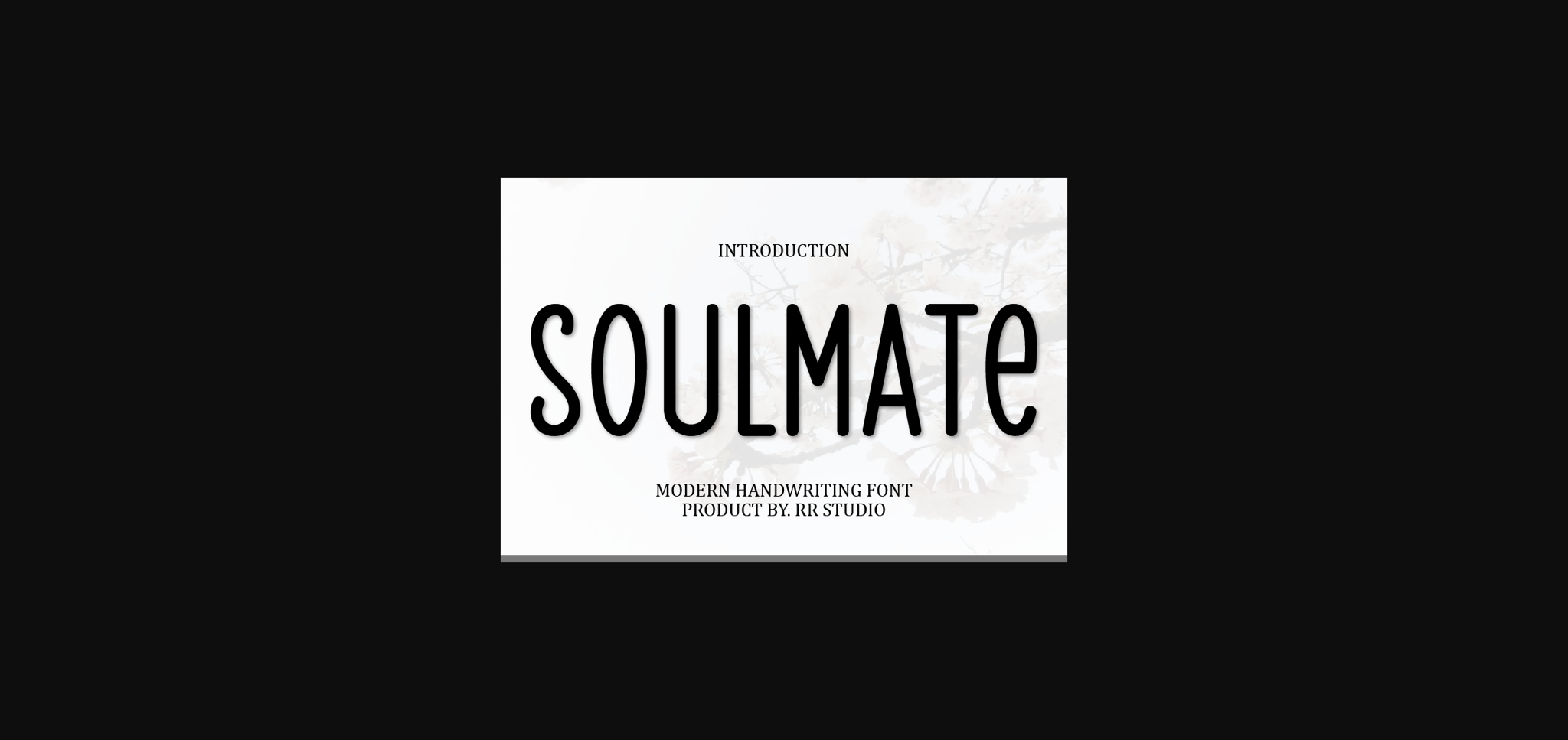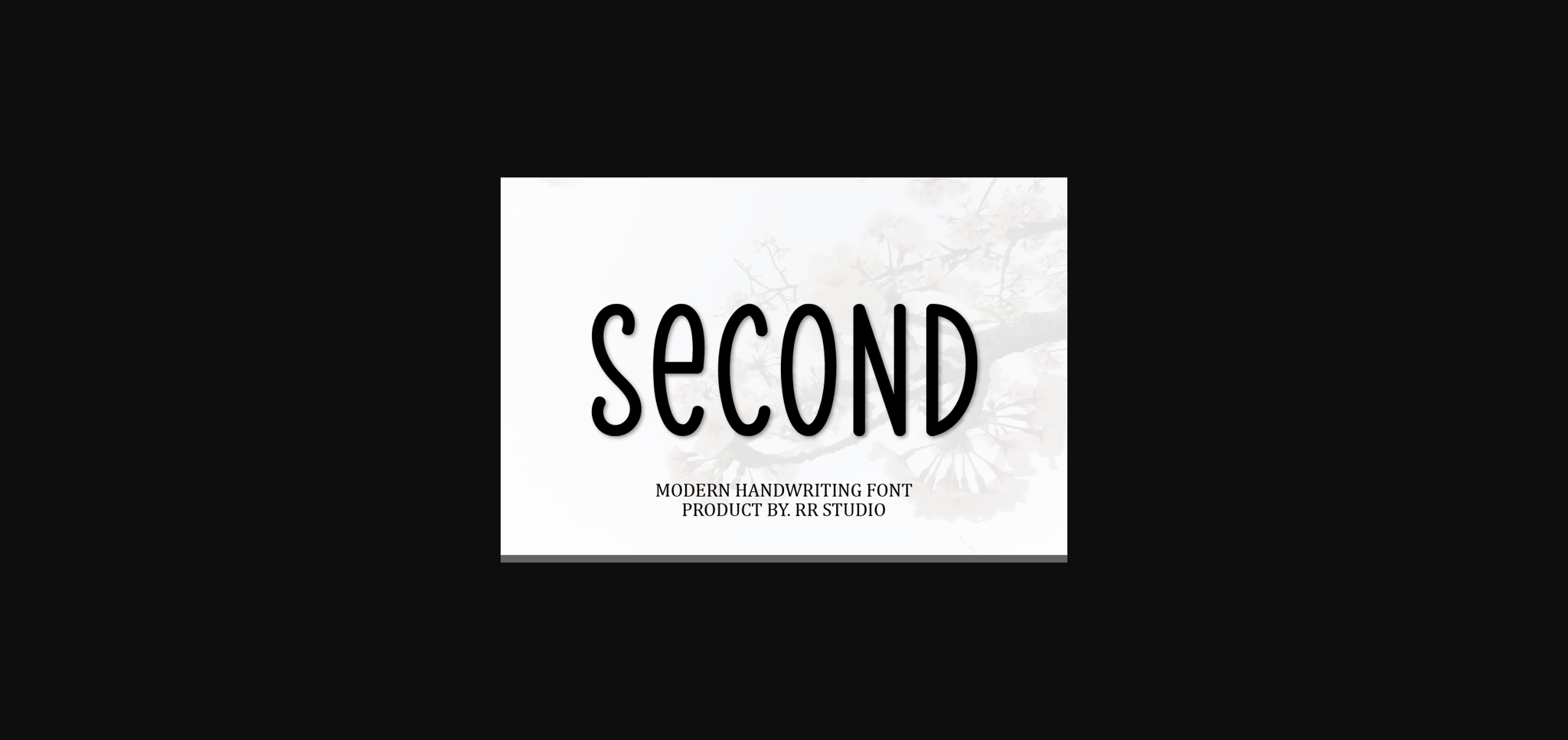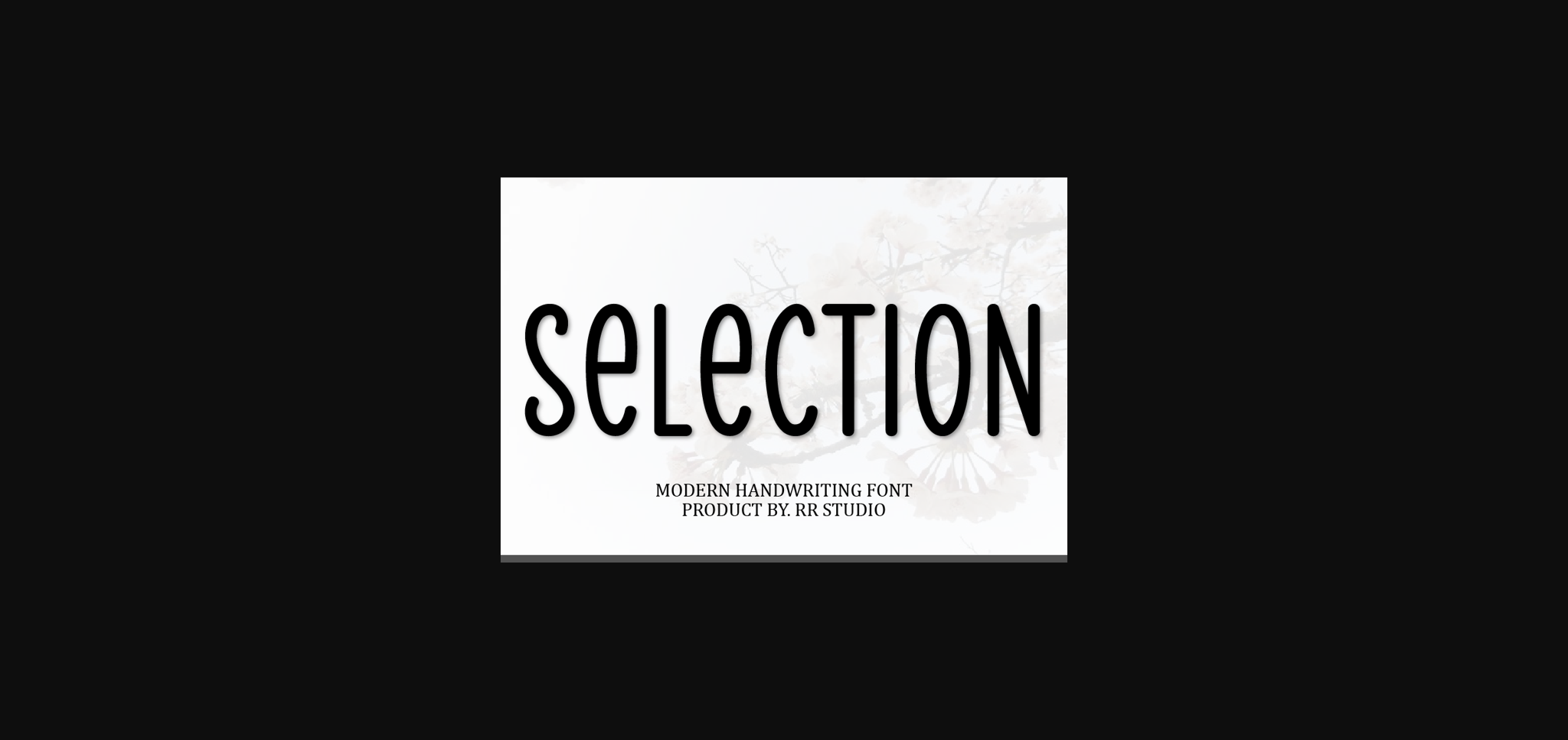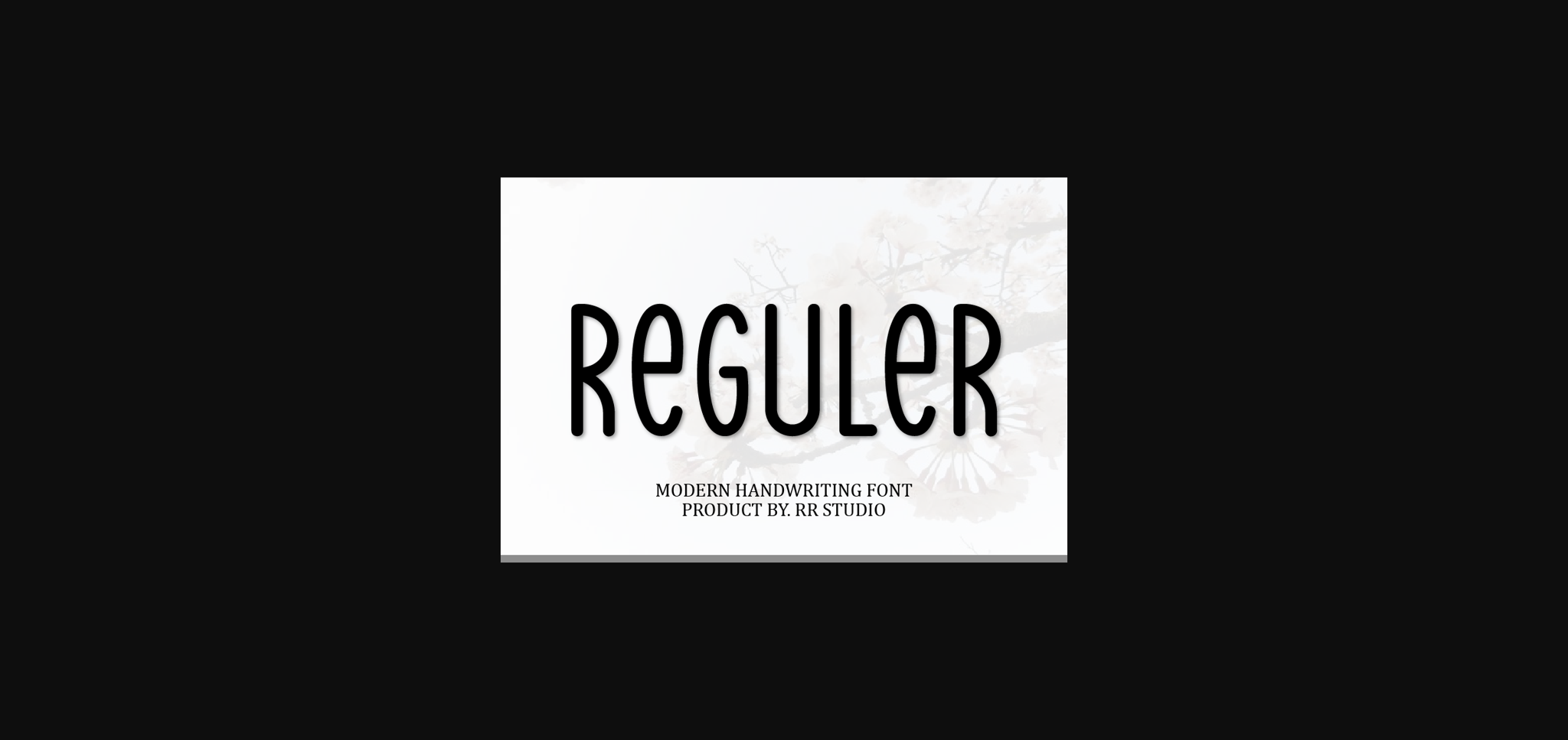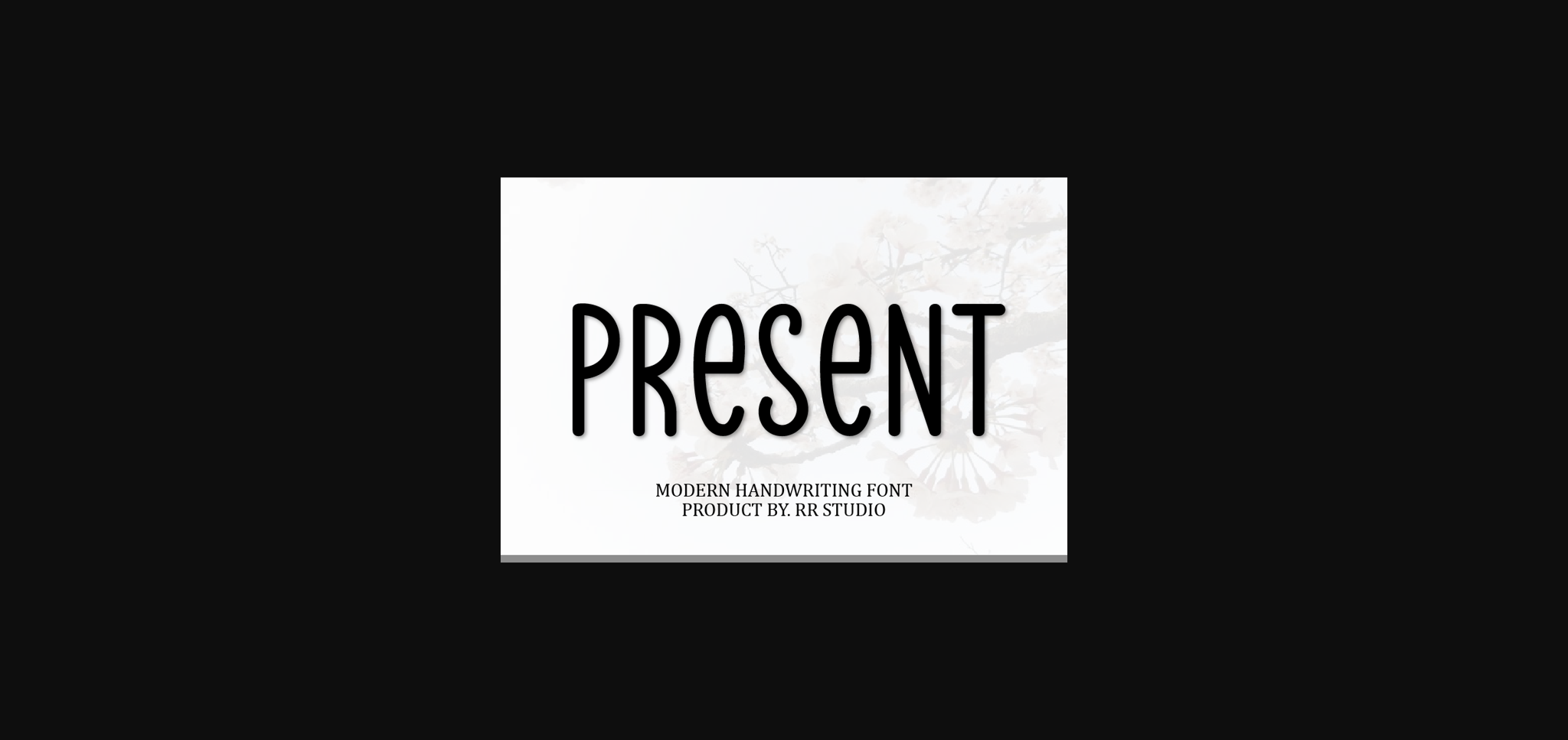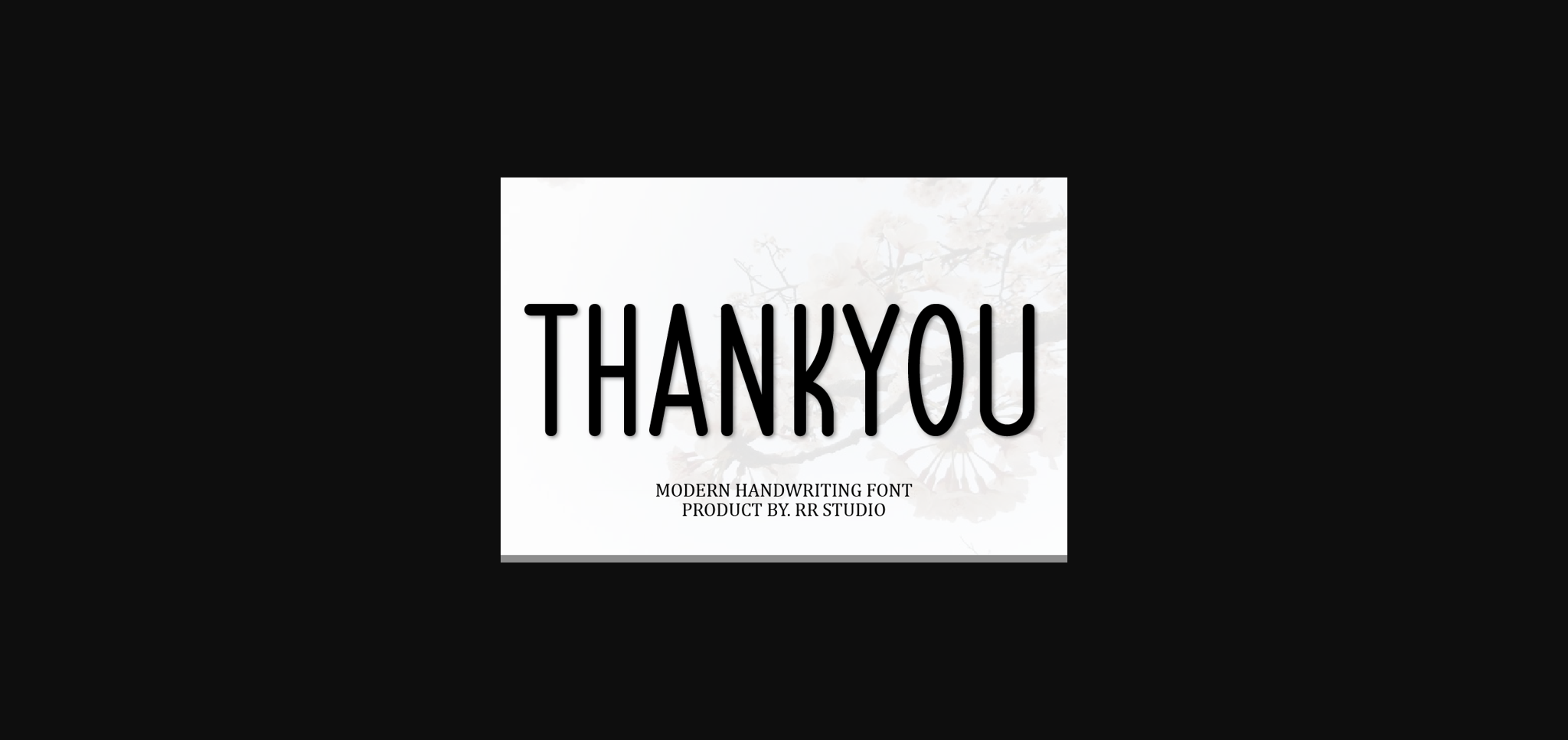
Soulmate Font
About Soulmate Font
Soulmate is a neat and casual sans-serif font designed for clarity and readability. With its clean lines and balanced proportions, Soulmate is versatile and suitable for various design projects, from digital interfaces to print materials. Its simplicity and modern appeal make it a practical choice for communication.